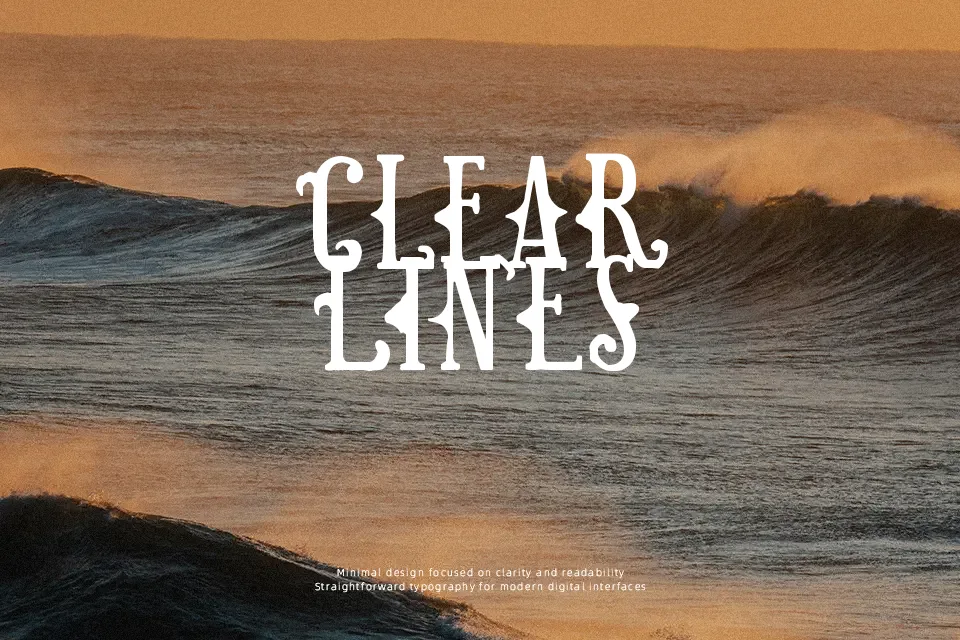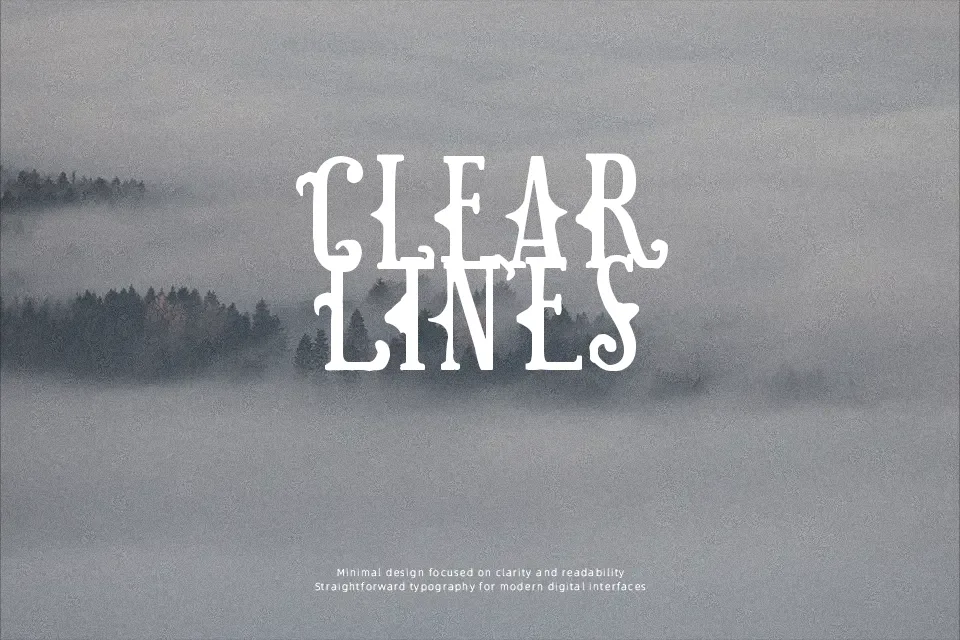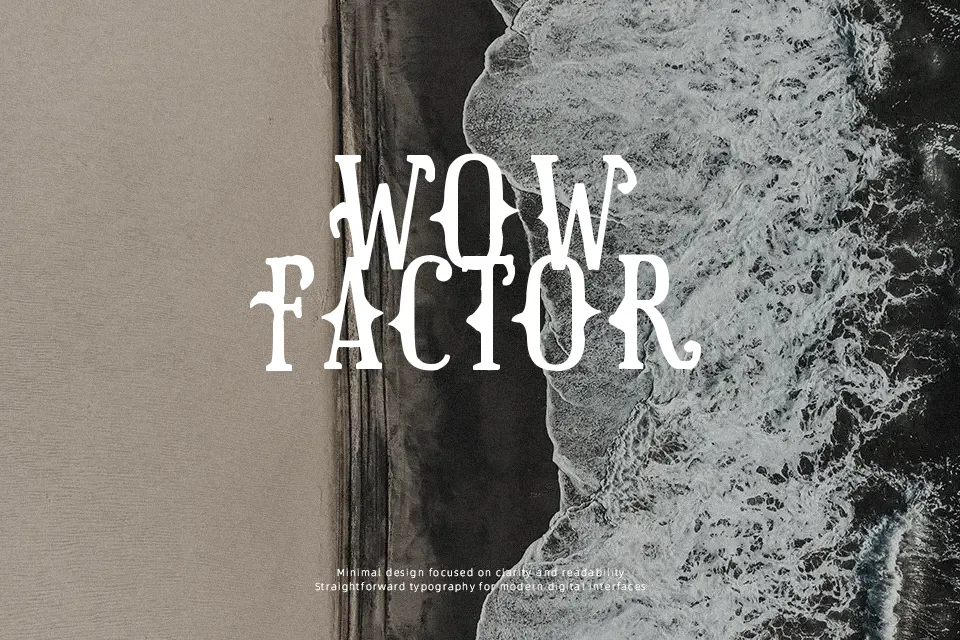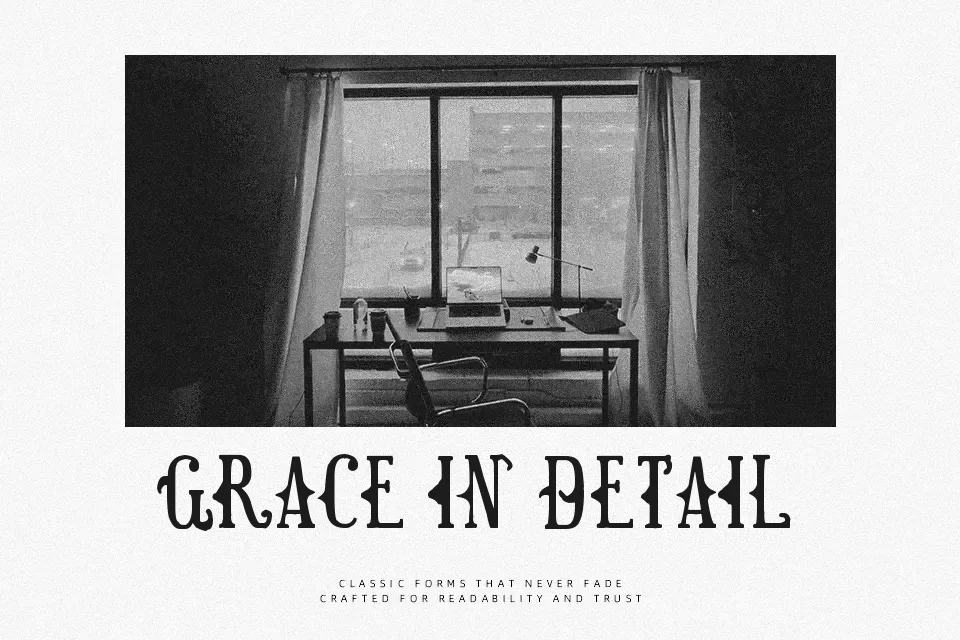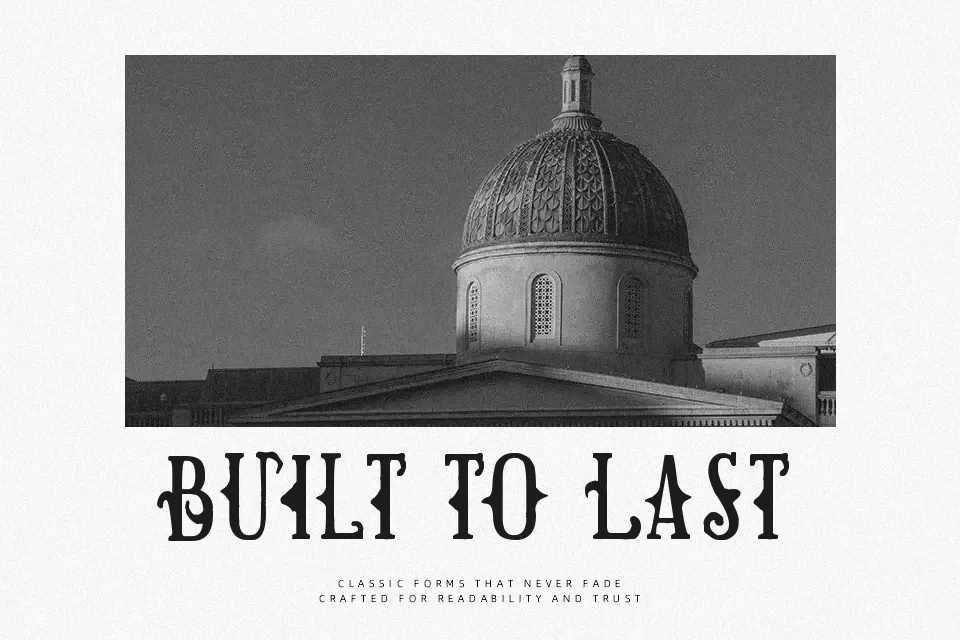
Surpal Lovely Font
Surpal Lovely Font establishes a commanding presence through heavy structural stems, angular spurs, and decorative carved cutouts reminiscent of classic frontier woodblock typography. The typeface features robust slab serifs and balanced spacing that preserve glyph differentiation across broad horizontal lines. Prominent capitals exhibit uniform weight distribution, making the design well suited for theatrical posters, rustic restaurant branding, and large display banners. However, the intricate internal notches and substantial stroke density reduce legibility at small point sizes, causing intricate letterforms to blur in continuous body passages. For optimal visual clarity, designers should reserve the letterforms for standalone titles and spacious header arrangements.
Best For: saloon signage, western poster headlines, vintage product packaging, rustic apparel branding
Not Ideal For: long paragraph text, mobile user interfaces, legal contracts, dense editorial body text